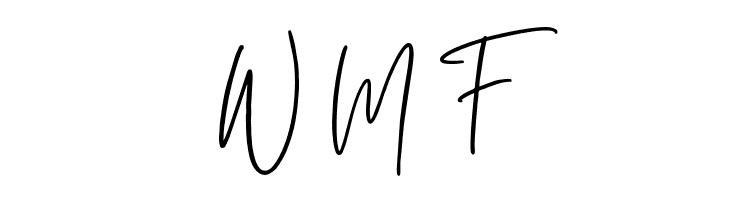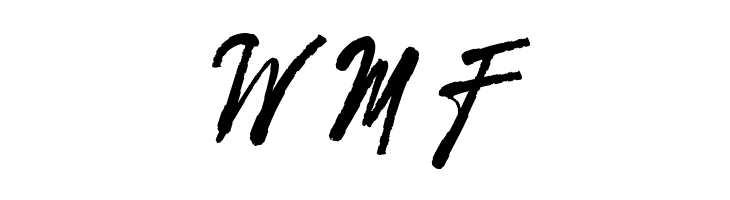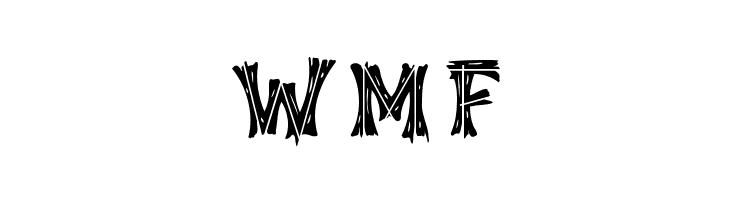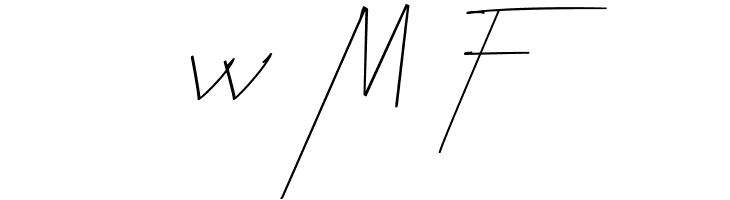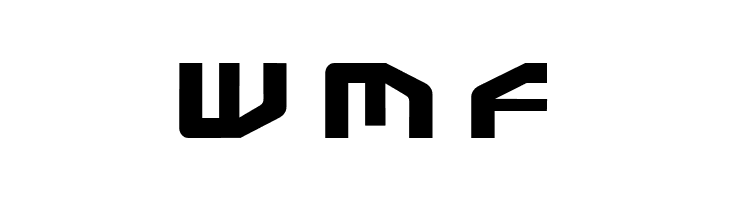
Whimsical, witch-themed decorative font with playful, spooky elements.
A lively, handwritten font with fluid, organic letterforms and a creative touch.
A bold, cursive brush script font with dynamic and fluid strokes.
An elegant, flowing script font with smooth, cursive letterforms.
An artistic handwritten font with elongated, flowing letterforms and high contrast.
A bold, decorative font with leaf-patterned characters.
A bold, decorative font with leaf motifs integrated into each character.
A playful, hand-drawn font with tall, narrow letters and a whimsical style.
A playful, decorative font with comb-like horizontal lines extending from each character.
A bold, italic font with dynamic horizontal lines for a sense of movement.
A playful, bold font with rounded strokes and whimsical shapes.
A bold, decorative font with clover leaf patterns for a playful touch.
A bold, playful font with rounded edges and a modern-retro style.
Festive, patterned display font with bold, outlined characters.
Bold, festive display font with decorative holiday patterns.
Bold display font with antler decorations for a festive look.
A bold, flame-inspired font with dramatic, fiery extensions.
Bold, whimsical display font with jagged, brush-stroke edges.
A bold, whimsical hand-drawn display font with sketchy, energetic strokes.
Bold, distressed display font with jagged, ink-like edges.
Energetic, hand-drawn decorative font with ink-like strokes.
Bold, whimsical display font with jagged, playful edges.
A sleek, futuristic font with geometric shapes and clean lines.
A bold, futuristic font with smooth, rounded edges and a geometric structure.
A sleek, italicized font with a futuristic and dynamic style.
A modern, geometric outline font with a futuristic aesthetic.
A modern, geometric font with bold, semi-rounded characters.